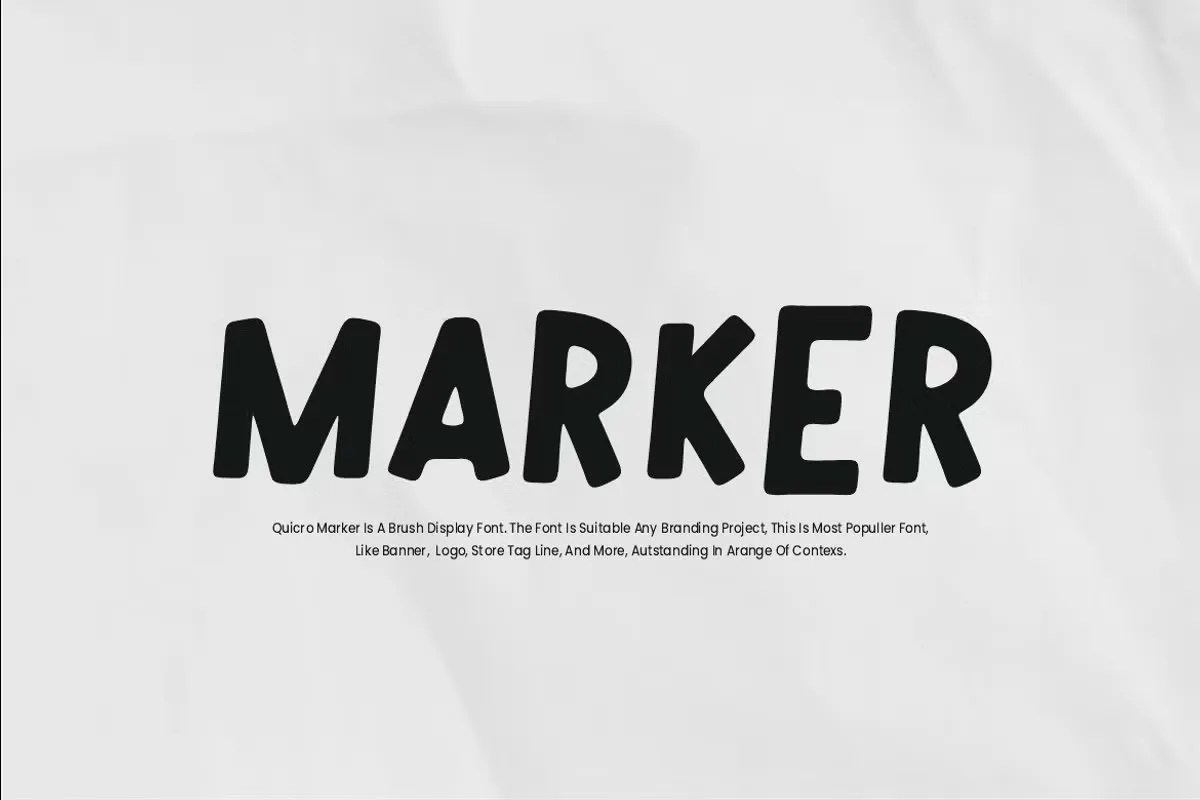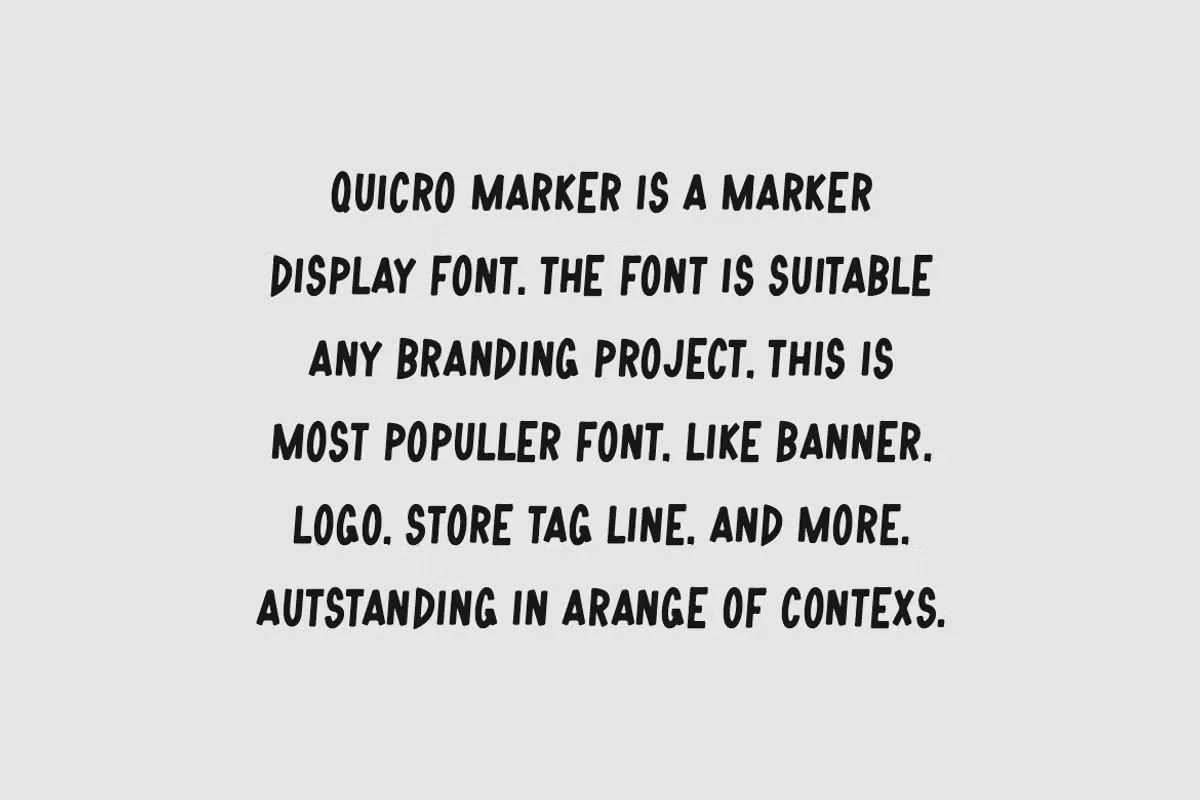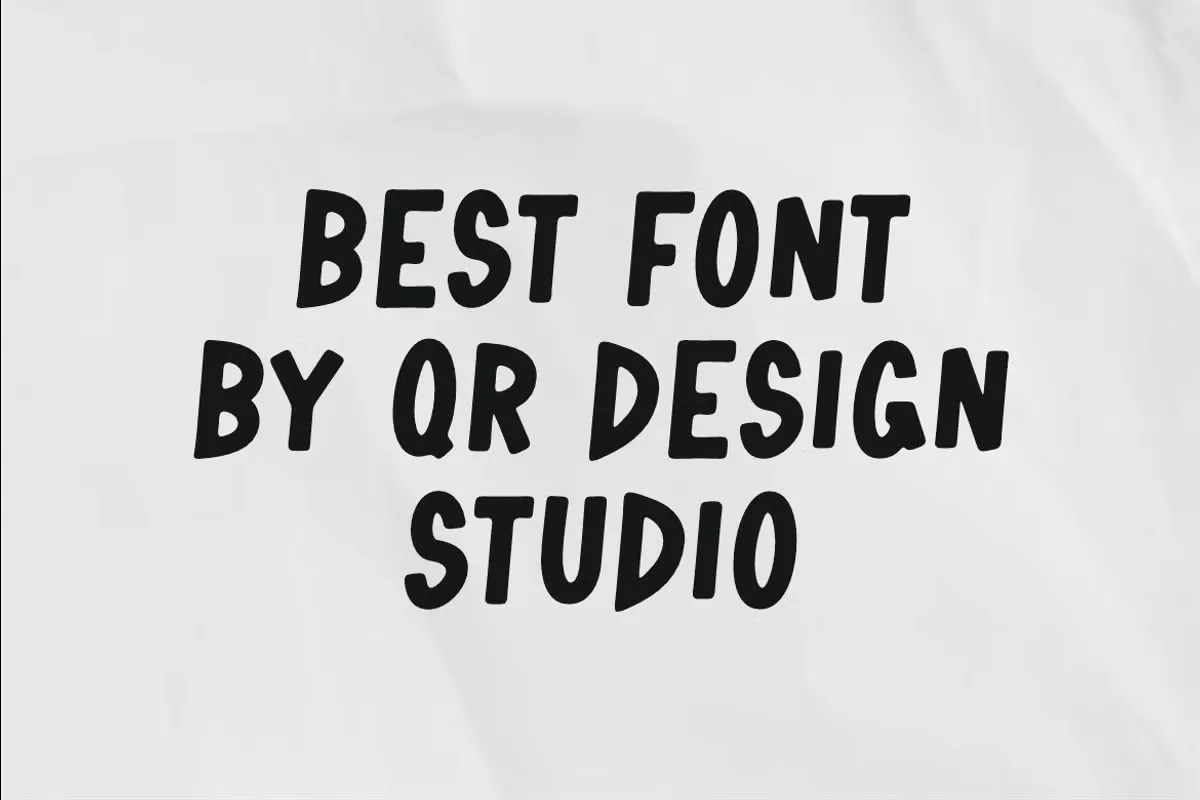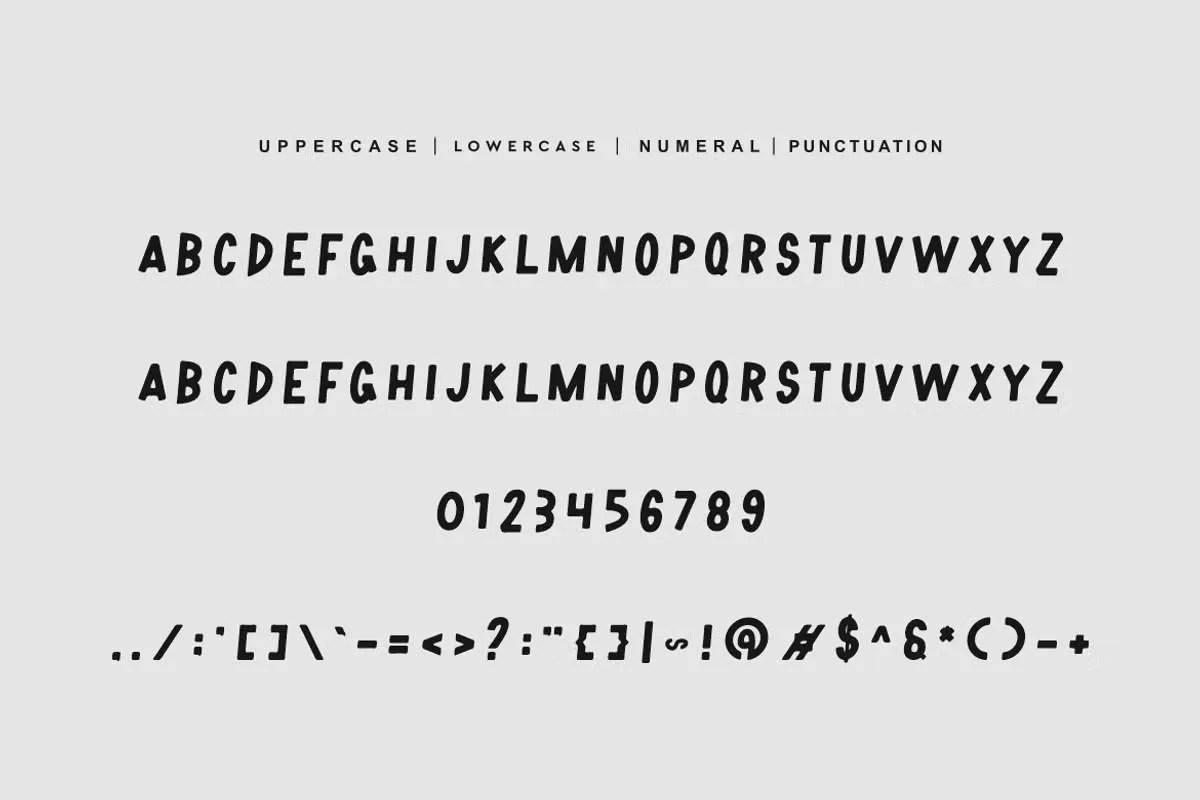
Quicro Marker by QR Design Studio is a bold sans serif font with a marker-style aesthetic, giving your designs a handcrafted yet modern look. Its clean, strong lines with organic edges make it versatile for both professional and creative projects.
Ideal for logos, branding, posters, social media graphics, packaging, and titles, Quicro Marker delivers a confident and stylish presence that grabs attention instantly.
• Bold sans serif typeface with marker effect
• Perfect for logos & branding
• Great for posters & promotional design
• Suitable for social media & digital graphics
• Strong handcrafted feel
• Clean yet expressive lettering
• Enhances packaging & product design
Quicro Marker